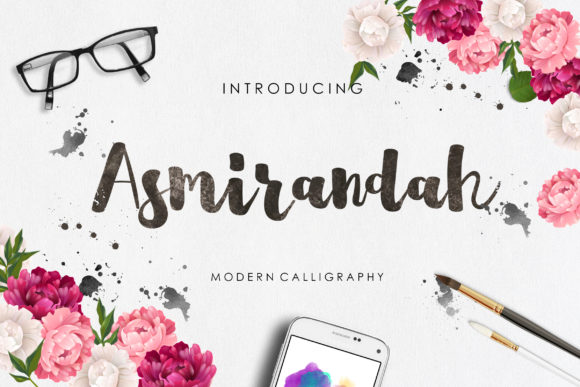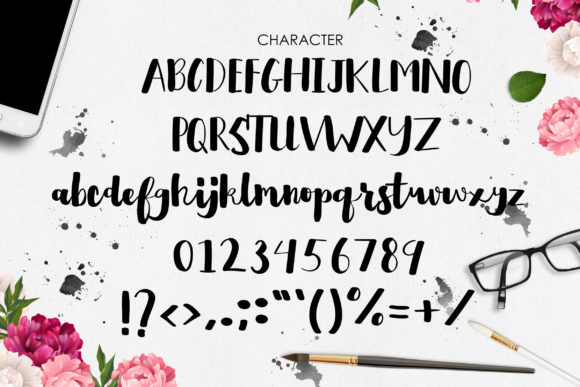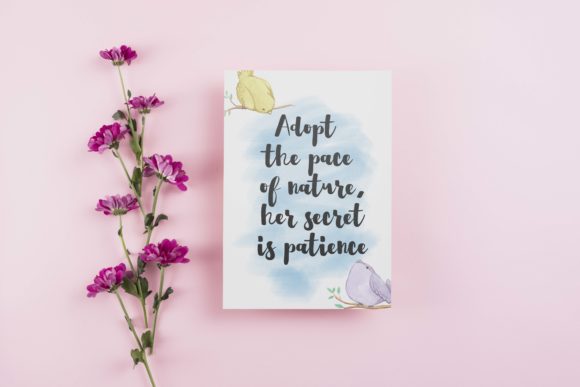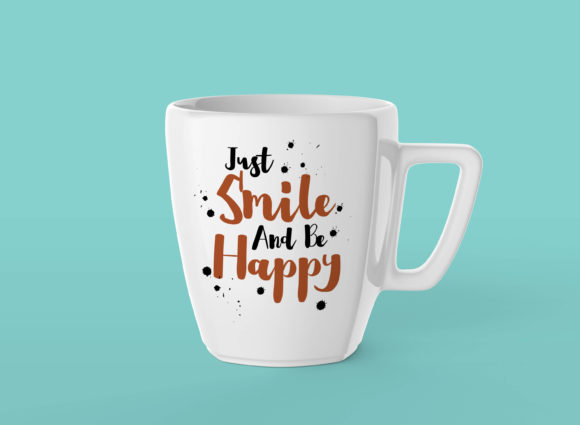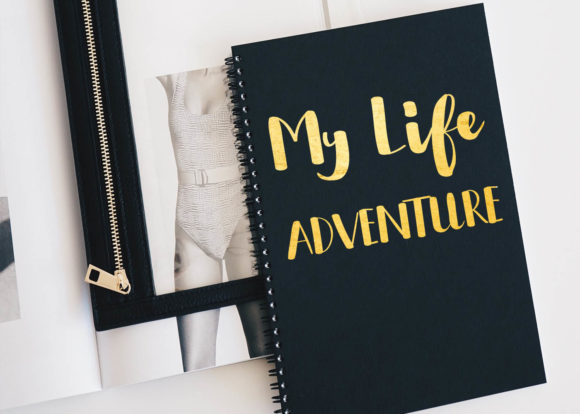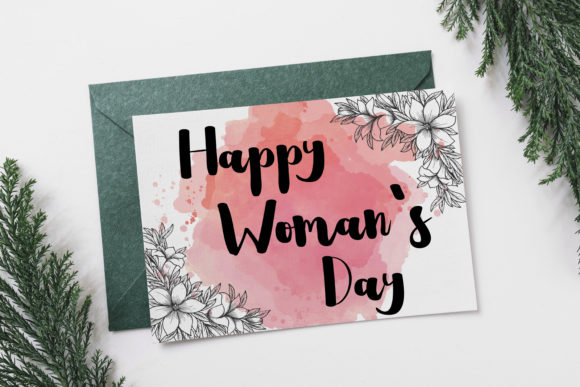
Asmirandah Font
About Asmirandah Font
Asmirandah is a lovely handwritten calligraphy font. It’s combining the classic style of calligraphy with a more modern style.
It can be used for various purposes such as logos, wedding invitations, t-shirts, letterheads, signage’s, labels, and much more!